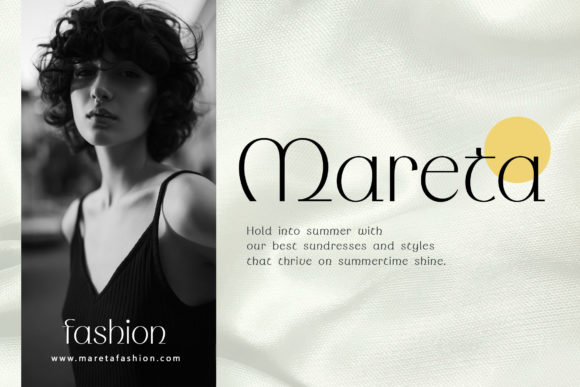
Wondermind Font
Wondermind is a thin lettered and delicate sans serif font. It has a classy, elegant and modern look that can be used for logos, branding, invitations, stationery, wedding designs, social media posts, and much more!